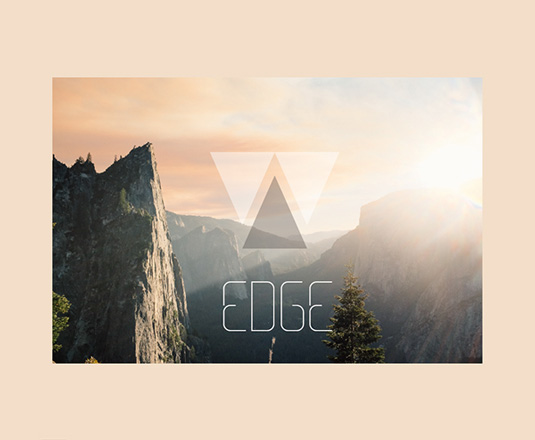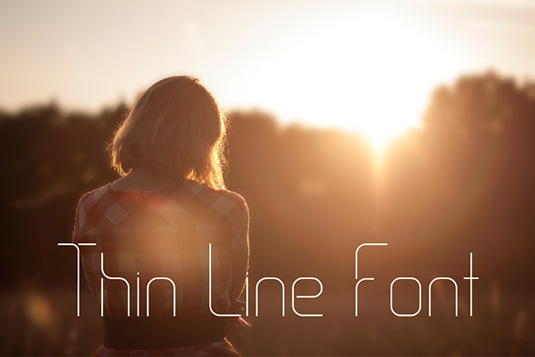
Font of the day: Thin Line
Thin Line by Gatis Vilaks
Thin Line is the first font from designer Gatis Vilaks. With clean lines and an elegant look, this free typeface comes complete with a full set of upper and lowercase characters and numbers.